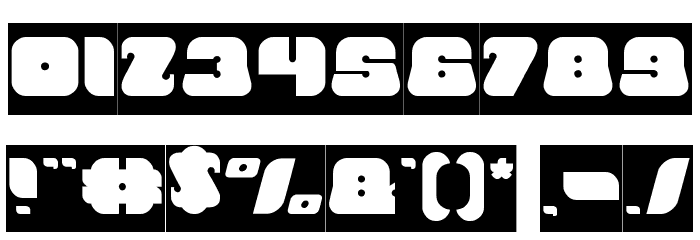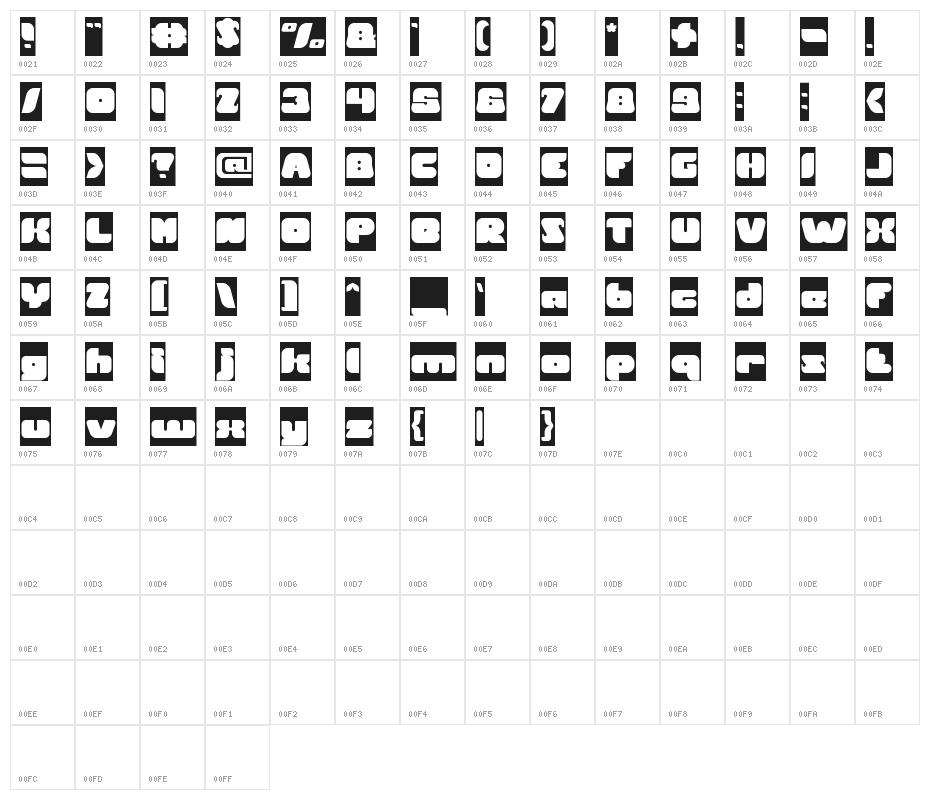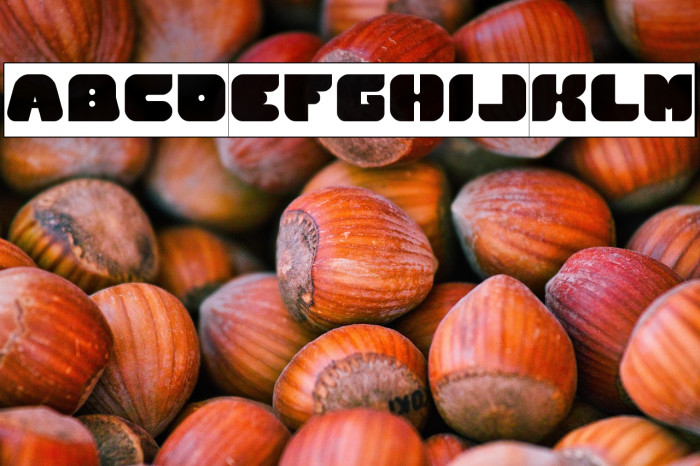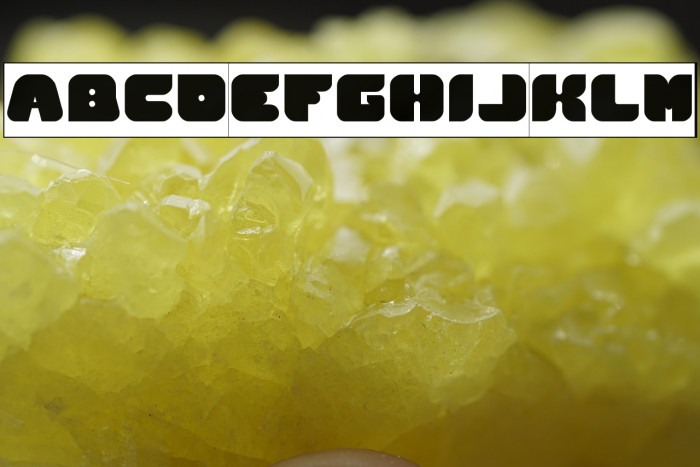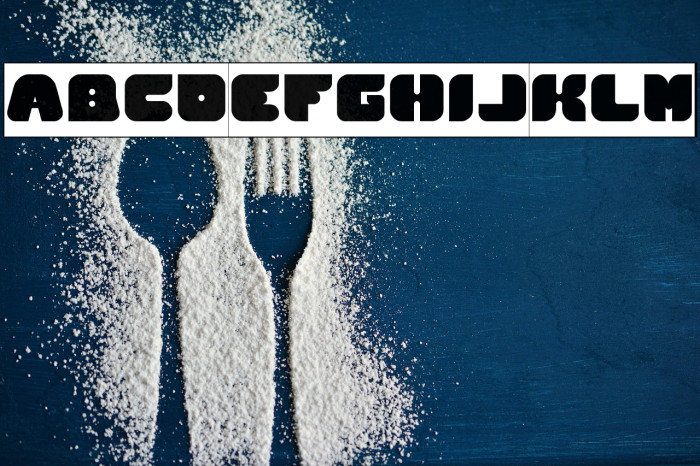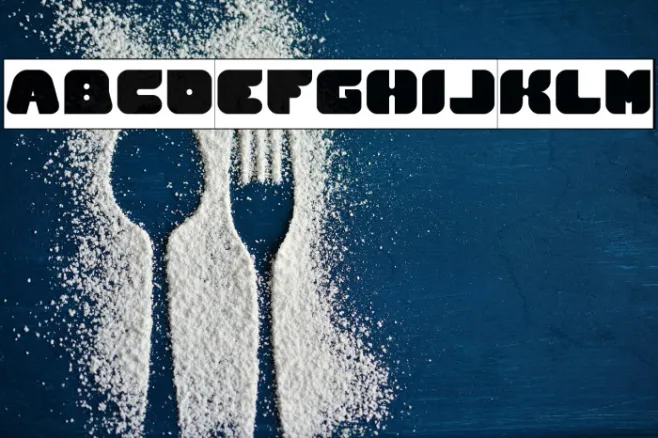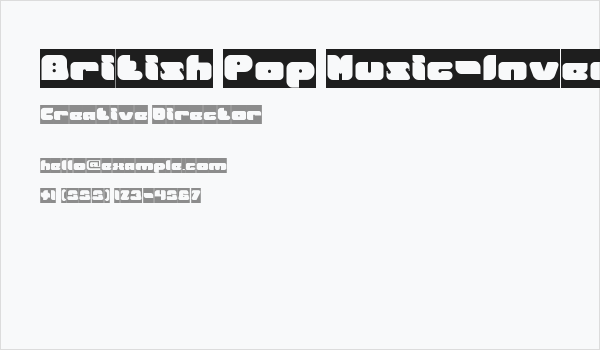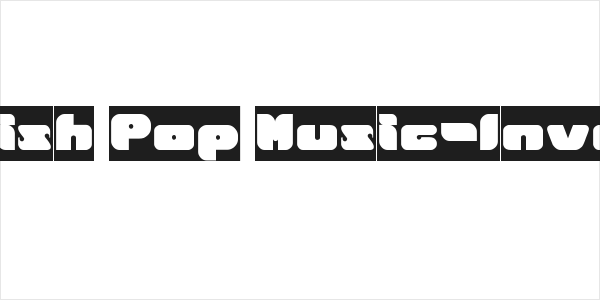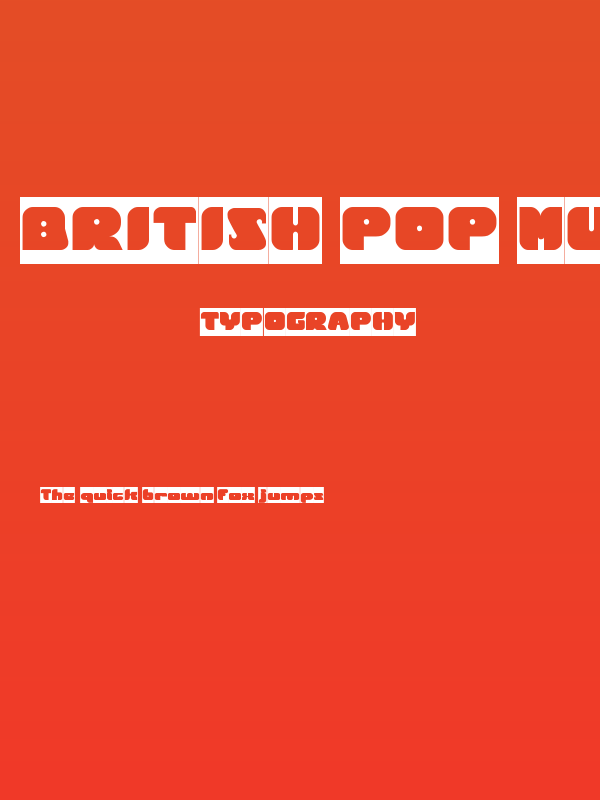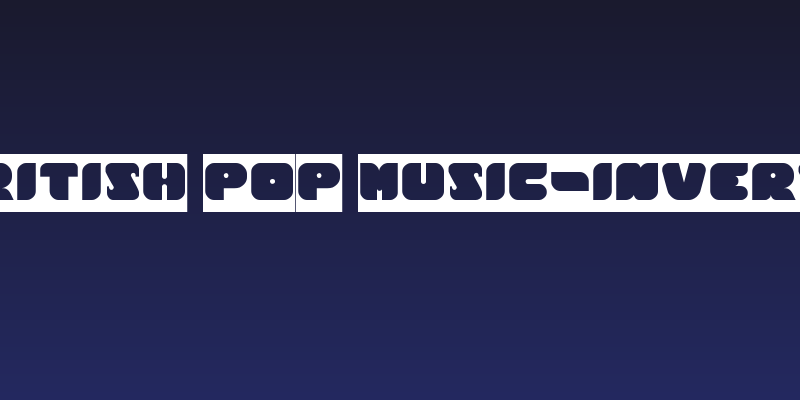
British Pop Music-Inverse Font
British Pop Music-Inverse Description
This font features a bold and playful design with a distinctly retro vibe, reminiscent of the 1960s and 70s pop culture. The characters are rounded and chunky, with a strong presence that commands attention. The uppercase and lowercase letters maintain a consistent style, with the lowercase letters slightly smaller but equally bold. Numbers and special characters follow the same design principles, ensuring uniformity across all glyphs. The font's unique style makes it ideal for projects that require a fun and energetic feel, capturing the essence of a bygone era while remaining fresh and modern.
| Proposed Projects | Ideal for music album covers, retro-themed posters, branding for vintage-inspired products, and playful graphic design projects. |